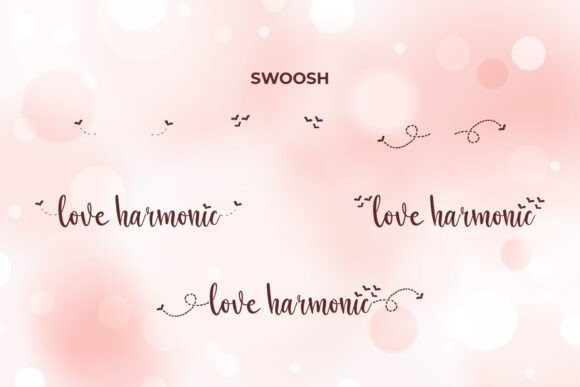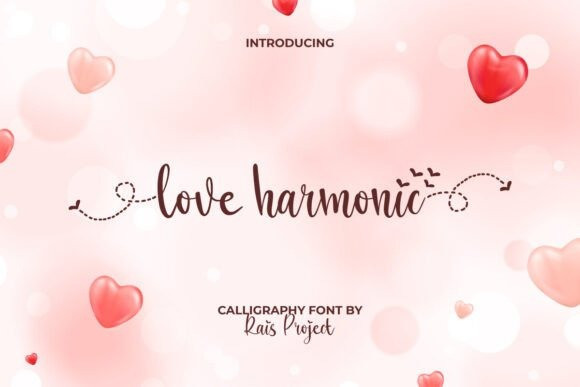
Love Harmonic Script Font
Love Harmonic Script Font is a charming calligraphy font with soft, flowing strokes and delightful decorative elements. Perfect for romantic designs, wedding invitations, love-themed projects, and heartfelt branding. Infuse your work with love and elegance using this sweet and graceful font.